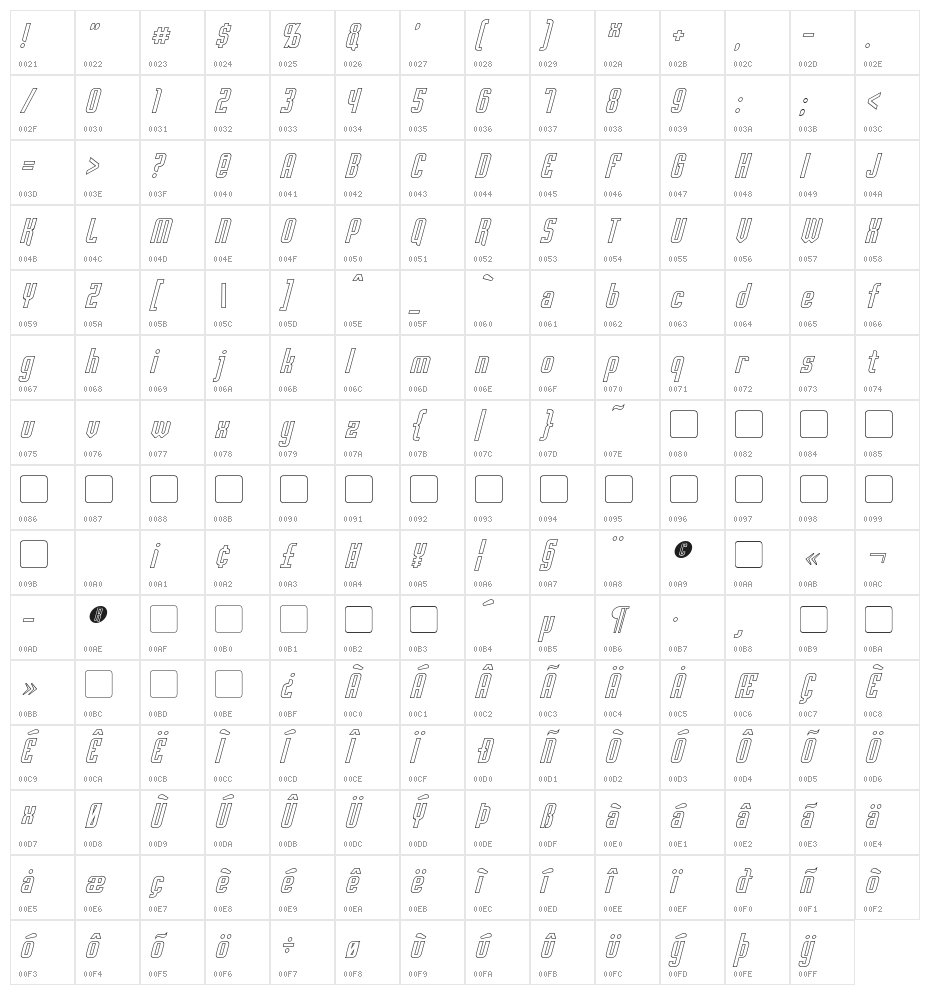
Palisoc Hollow Italic Font
Palisoc Hollow Italic Description
This font features a unique hollow design with a modern and sleek appearance. The characters are outlined, giving them a three-dimensional effect that stands out on any page. The italic style adds a dynamic and forward-leaning motion, enhancing its contemporary feel. Each letter is crafted with precision, maintaining a consistent stroke width that contributes to its clean and organized look. The uppercase and lowercase letters are well-balanced, and the numbers and special characters are designed to complement the overall aesthetic. This font is ideal for projects that require a bold statement while maintaining a sense of elegance and sophistication.